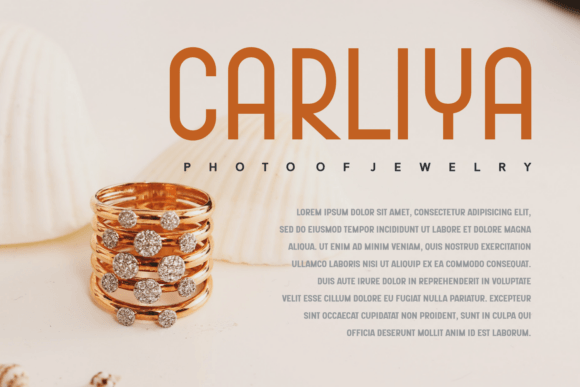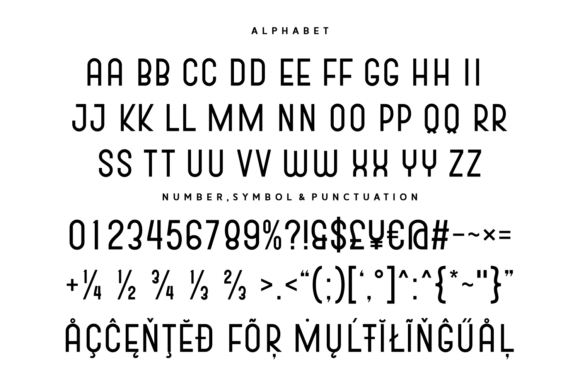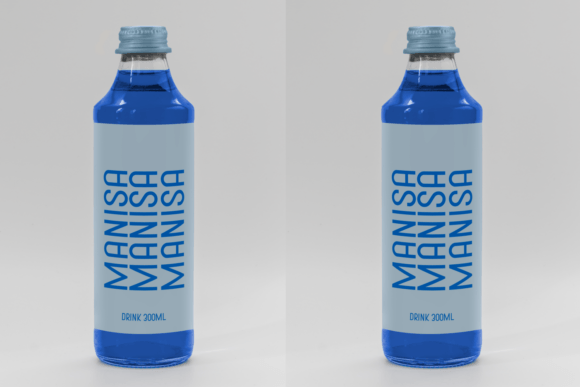
Creative Schedule Font – Free Download
Introduction to Creative Schedule Font
Creative Schedule is a modern sans-serif font with clean lines and a contemporary design.
Perfect for planners, calendars, and professional layouts, it combines simplicity with elegance Its versatile style makes it ideal for both digital and print formats, enhancing readability and visual appeal.
Key Features of Creative Schedule Font
Why Choose Creative Schedule Font?